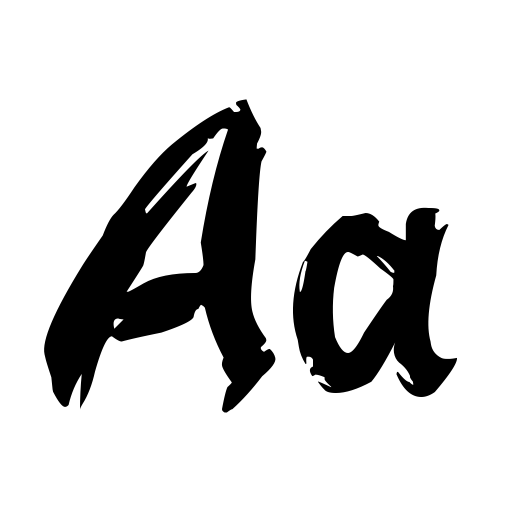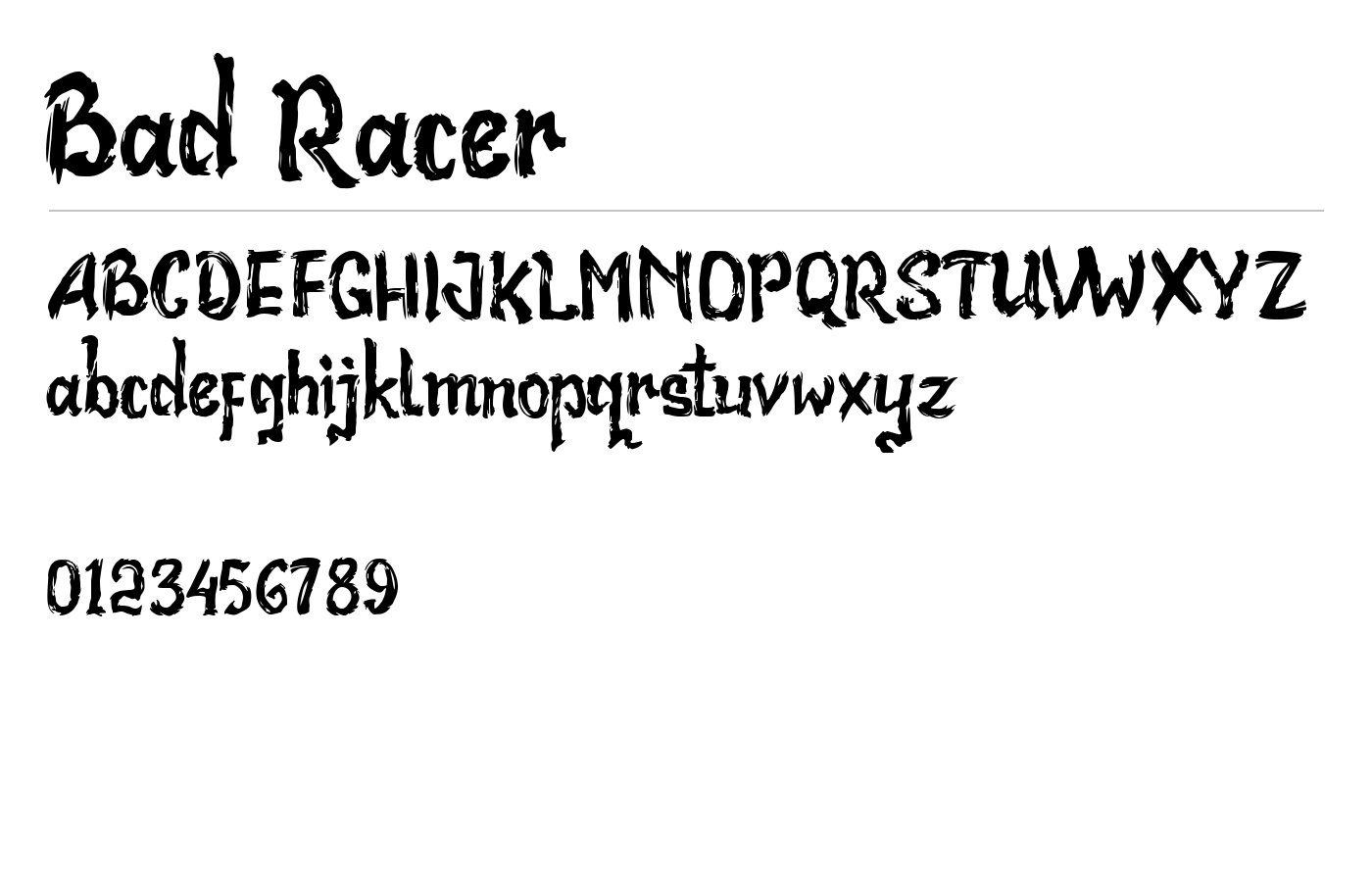
Bad Racer is a bold and rough script-style font with a hand-painted, textured appearance, giving it a wild and energetic character. Its irregular strokes and edgy details make it ideal for creative, rebellious, or urban-themed designs, fitting perfectly in posters, logos, and branding that need an expressive and dynamic feel. This font’s unique style stands out best in headline or display use rather than body text, adding a striking, informal vibe.
Bad Racer Font
About Bad Racer Font